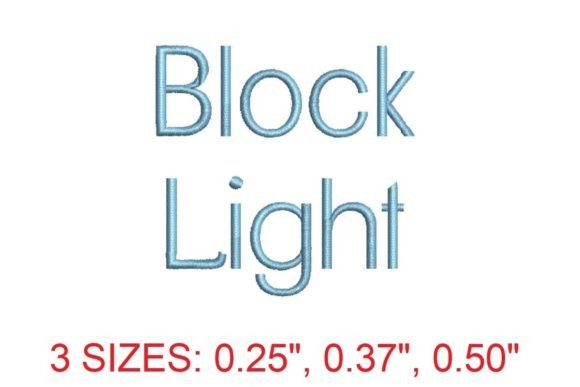
Block Light Embroidery Font Review
As a designer who’s worked with countless embroidery files, I always start by evaluating a new design based on its visual appeal, practicality, and how it translates to real-world projects. The Block Light Embroidery Font caught my attention for its clean, modern aesthetic and its potential to elevate a wide range of handmade and commercial products. Let me walk through my first impressions and real-life testing of this font.
First Impressions: A Sleek, Versatile Design
The Block Light Embroidery Font immediately feels like a go-to choice for minimalist, contemporary projects. Its bold, geometric letters have a strong presence without being too rigid. The font has a light, almost floating quality that makes it stand out on both light and dark fabrics. It’s not overly decorative, which means it can blend well with other design elements or work as a standalone piece.
The layout is clean, with consistent spacing and sharp edges. This makes it ideal for custom apparel, baby items, and personalized gifts where clarity and readability are key. The design also has a subtle warmth that gives it a friendly, approachable vibe—perfect for Back To School themes or holiday gifts.
Real-World Use: How It Stitches Out
I tested the Block Light Embroidery Font on several fabric types and project styles. On a standard cotton tote bag, it looked crisp and professional. The satin stitch used for the letters was smooth, with minimal visible gaps. For a sweatshirt, the font held up well, even when stretched during wear.
On baby clothes, the font’s simplicity made it easy to read, and the softness of the stitches didn’t irritate sensitive skin. When I tried it on a lightweight t-shirt, the design didn’t pucker or distort, which is a big plus for everyday wear.
One thing to note is that the font works best with medium to high stitch density. If you’re using it on a thin fabric or in a small hoop, you might need to adjust the settings to ensure the letters don’t look too sparse or fragile.
Where It Shines: Practical Applications
The Block Light Embroidery Font is a great fit for custom apparel, embroidered patches, and tote bag designs. Its clean lines make it ideal for small shop products, Etsy listings, and craft fair items that need a polished, professional look. It also pairs well with other embroidery elements, such as borders or icons, without overwhelming the overall design.
When used in printable mockups or digital product previews, the Block Light Embroidery Font adds a touch of sophistication. It’s especially effective for holiday embroidery, wedding gifts, and personalized home decor items where visual impact matters.
Where to Be Cautious: Limitations and Considerations
While the Block Light Embroidery Font is versatile, there are some situations where it may not perform as well. On textured or stretchy fabrics, the design can lose some of its definition. You’ll want to test it on scrap fabric before committing to a full project.
Small hoop sizes can be a challenge, as the font’s details may get lost if the hoop isn’t large enough to accommodate the entire design. Similarly, on dark fabrics, the thread color contrast becomes crucial. A lighter thread may not show up as well as a darker one, so choose your colors carefully.
If you’re planning to use the font on curved surfaces like caps or on products that require frequent washing, consider reinforcing the stitches with a proper stabilizer. This will help maintain the design’s integrity over time.
Impact on Visual Appeal and Customer Perception
The Block Light Embroidery Font adds a sense of modernity and professionalism to any finished product. It enhances the visual appeal of handmade items, making them more attractive to buyers. For small business owners and Etsy sellers, this can translate to higher customer engagement and better sales performance.
When used consistently across branding materials, the font helps reinforce brand identity. It’s also an excellent choice for personalized gifts, as it conveys a sense of thoughtfulness and care. Customers often appreciate the clarity and precision of the design, which builds trust in the quality of the product.
From a creative entrepreneur’s perspective, the Block Light Embroidery Font is a valuable addition to any design library. It’s flexible enough to work with various project types while maintaining a cohesive, stylish look.
Designer Notes: Tips for Success
Before using the Block Light Embroidery Font in a final project, I recommend testing it on a scrap fabric. This will help you see how it looks in different lighting conditions and on various textures. Check the thread color contrast, especially if you’re working with dark or patterned fabrics.
Review the stitch density and hoop size requirements. If the design is too dense, it may cause puckering or distortion. Adjust the settings as needed to ensure the best results. Also, inspect the small details—like corners and curves—to make sure they come out cleanly.
Use the Block Light Embroidery Font in black and white mockups to assess its visibility and clarity. Compare it against both light and dark backgrounds to determine the best thread color. And don’t forget to confirm the licensing terms if you plan to sell finished items or digital products.
Final Thoughts: A Smart Choice for Creative Projects
The Block Light Embroidery Font is a solid choice for anyone looking to add a modern, clean look to their embroidery projects. Whether you’re creating custom apparel, personalized gifts, or small shop merchandise, this font offers versatility, clarity, and style. With careful consideration of fabric type, hoop size, and thread color, it can become a staple in your design toolkit.